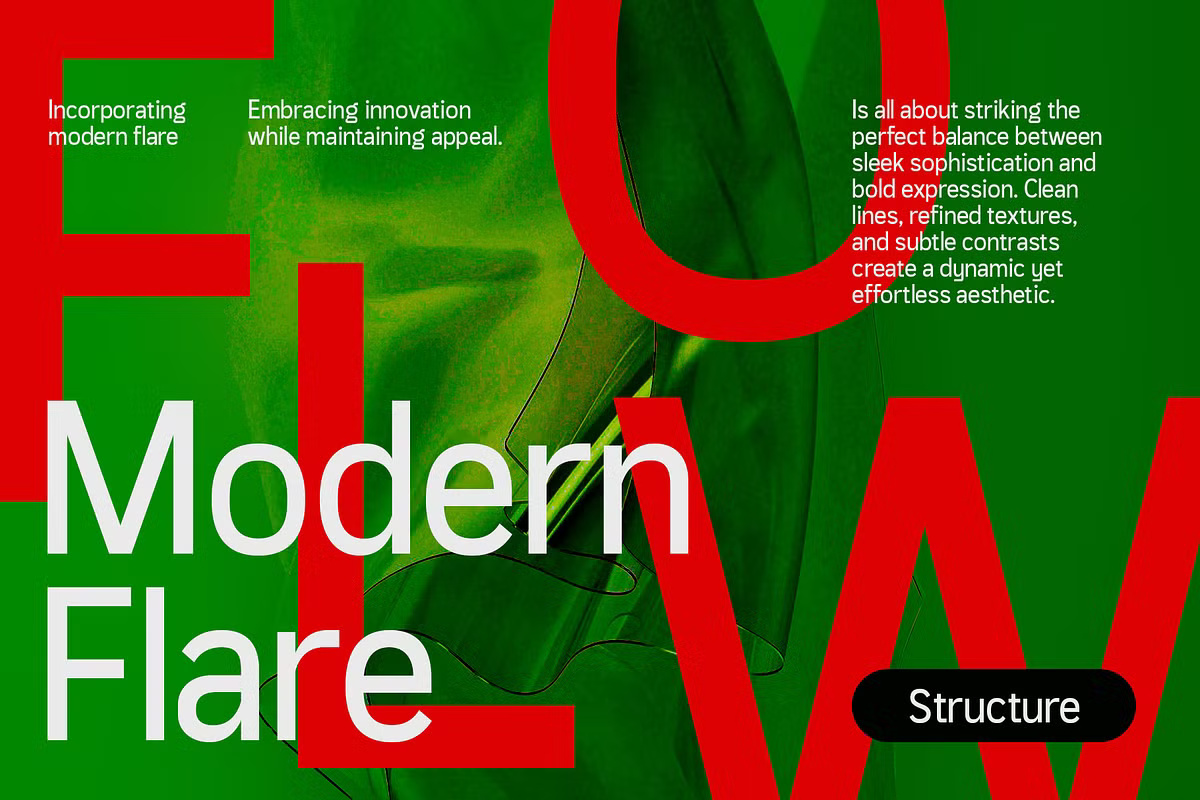
CS Mango is a no-fuss grotesque. The a is double storey, the g single storey, and curves are slightly squared. The cover sets Mango Sans large on an orange and green gradient, and a poster in red and green reads Modern Flare.
Craft Supply Co mixes grotesk and geometric shapes in it. The character set includes accented letters, currency and fractions. The free download is one OTF file. It has no decorative quirks, so it works as a workhorse for text and interfaces as well as for big titles.
Best uses for CS Mango
- App and UI text
- Brand identities
- Posters
- Packaging
- Presentations
CS Mango pairs well with a serif. Source Serif 4 works for long text. Fraunces adds character for headings.
CS Mango Sans Serif Font